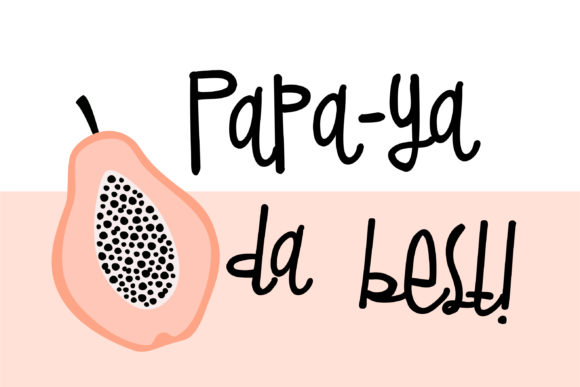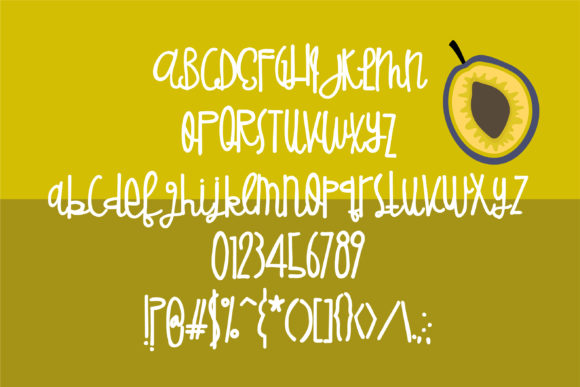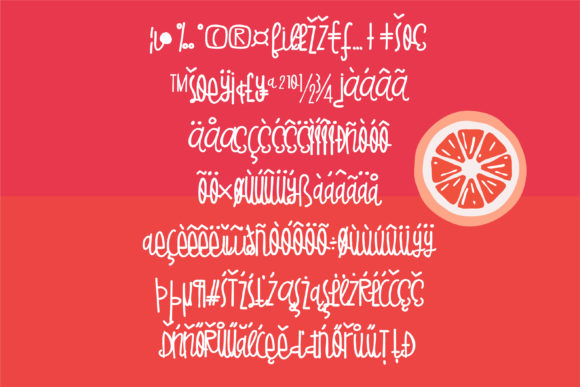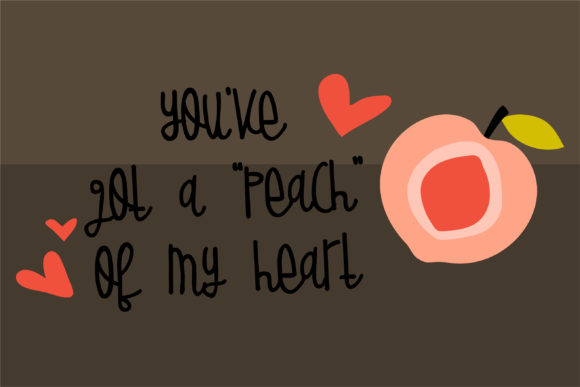
HomeScript FontsGolden Malarkey Font Script Fonts Golden Malarkey Font FacebookXPinterestWhatsApp Golden Malarkey Font Poster 2 Golden Malarkey Font Poster 3 Golden Malarkey Font Poster 4 Golden Malarkey Font Poster 5 About Golden Malarkey Font This whimsical hand-crafted script is part print and part script for a silly and casual feel. DOWNLOAD NOW People also explored Sweet Blueberry Font Play Funny Bug Font Master of Magic Font Sweetcake Font Kobar Moyes Font Feelsmooth Font White Coffee Font Shirt Mockup Styled Stock Photography Stock Photo Meline Font 287 0 TagsGolden Malarkey Font Previous articlePrettigel FontNext articleLemon Drop Font LEAVE A REPLY Cancel reply Comment: Please enter your comment! Name:* Please enter your name here Email:* You have entered an incorrect email address! Please enter your email address here Website: Save my name, email, and website in this browser for the next time I comment. Personal Use Free Critical Personal Use Free Read more about this font Numberpile Personal Use Free Read more about this font Silver Bullet Personal Use Free Read more about this font Morning Miow Personal Use Free Read more about this font BLOG Free Fonts Risk: Why Free Fonts Can Be Dangerous for Designers Free Fonts Risk: Why Free Fonts Can Be Dangerous for Designers Using free fonts is a common practice in web and graphic design. However, the... Top 10 Handwritten Fonts That Elevate Your Designs To increase your work productivity, choose the most readable fonts. Exploring Font Trends